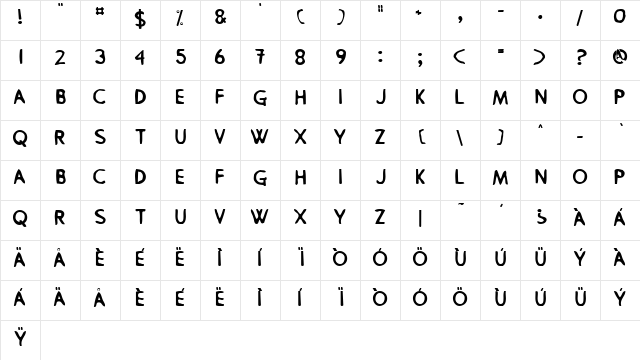
PingPong Regular Font Preview
PingPong Regular
Design Context for PingPong Typeface
PingPong takes a measured approach to typography — its balanced proportions and neutral character make it a reliable workhorse for both digital and print work.